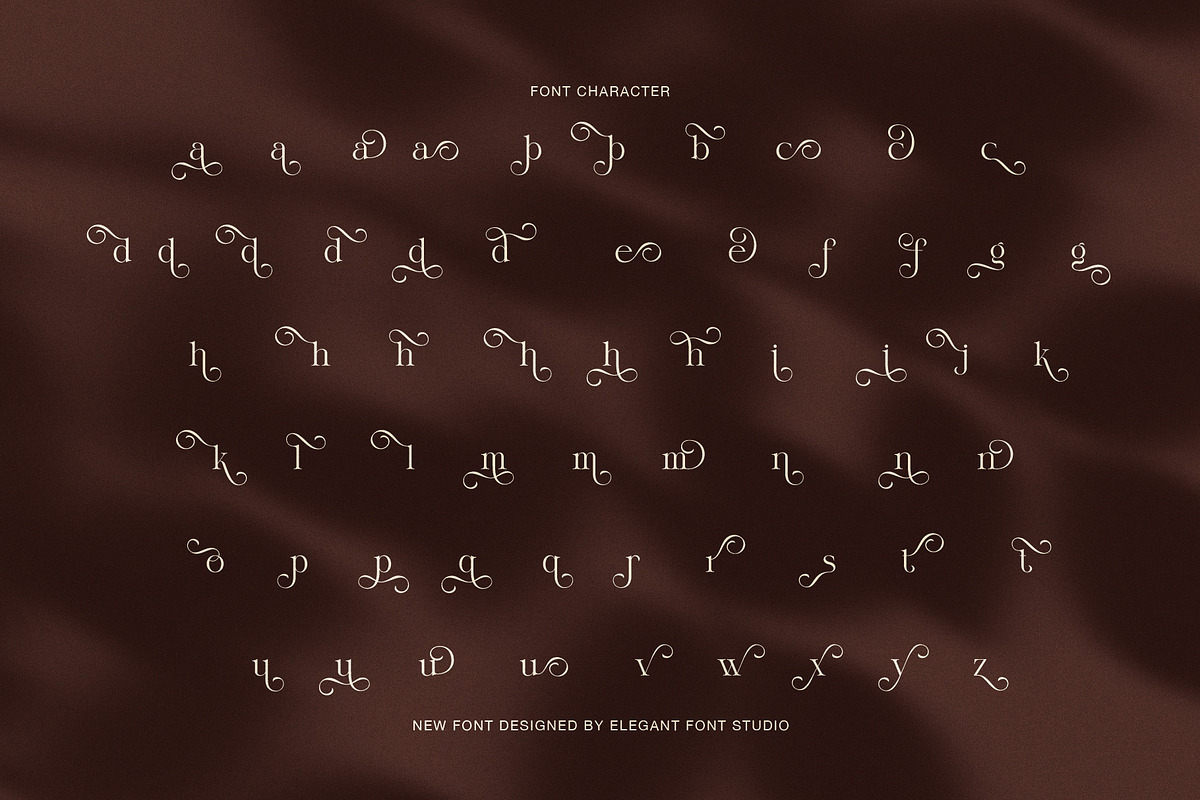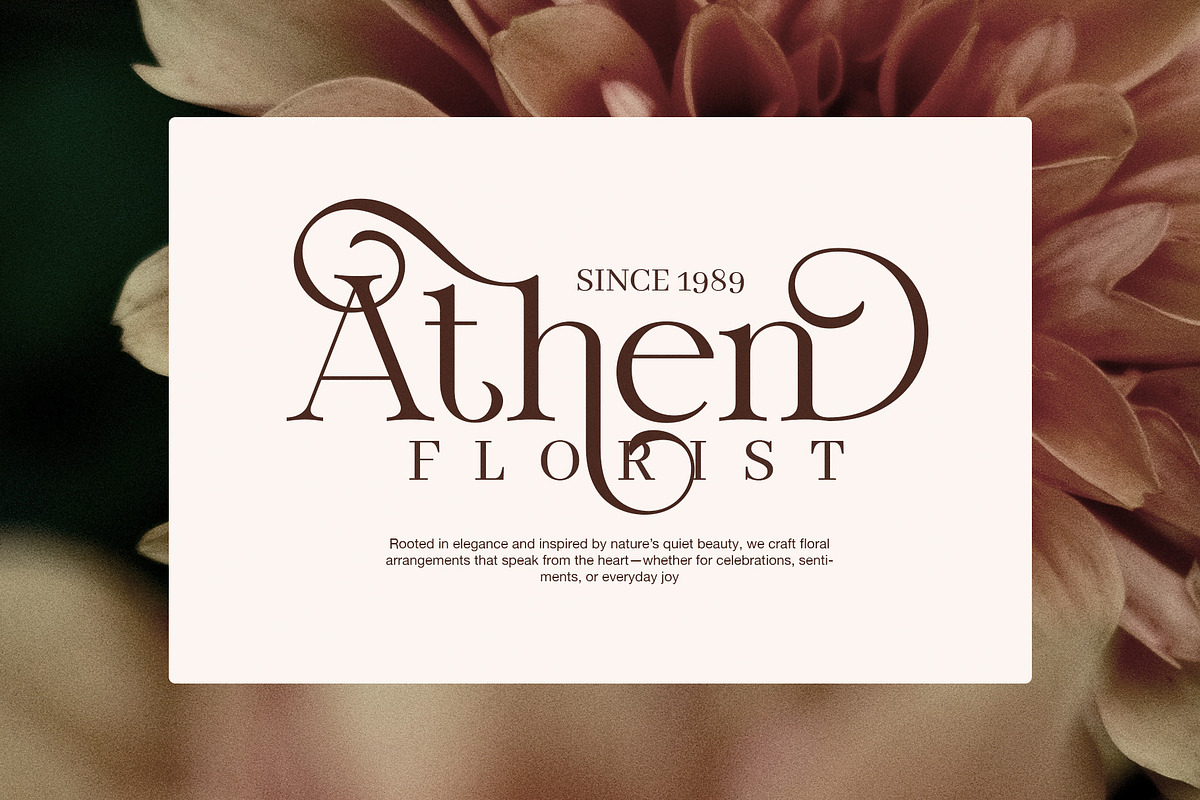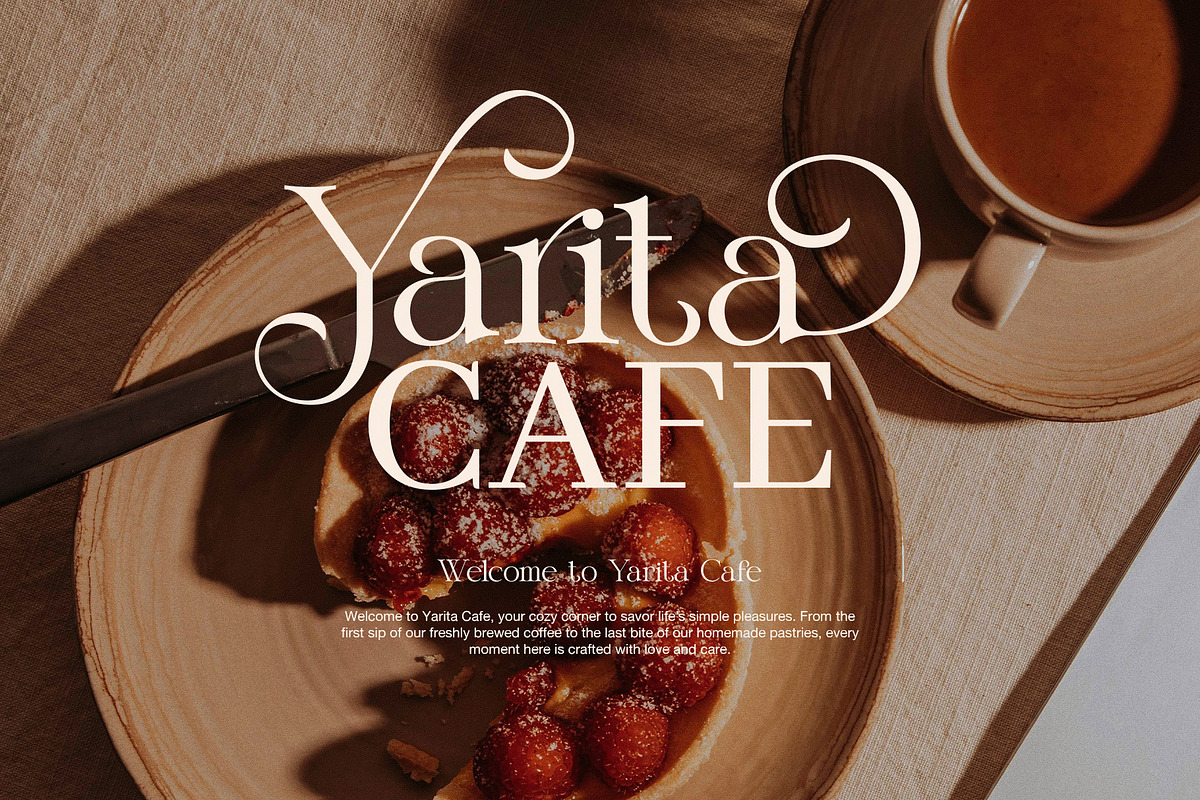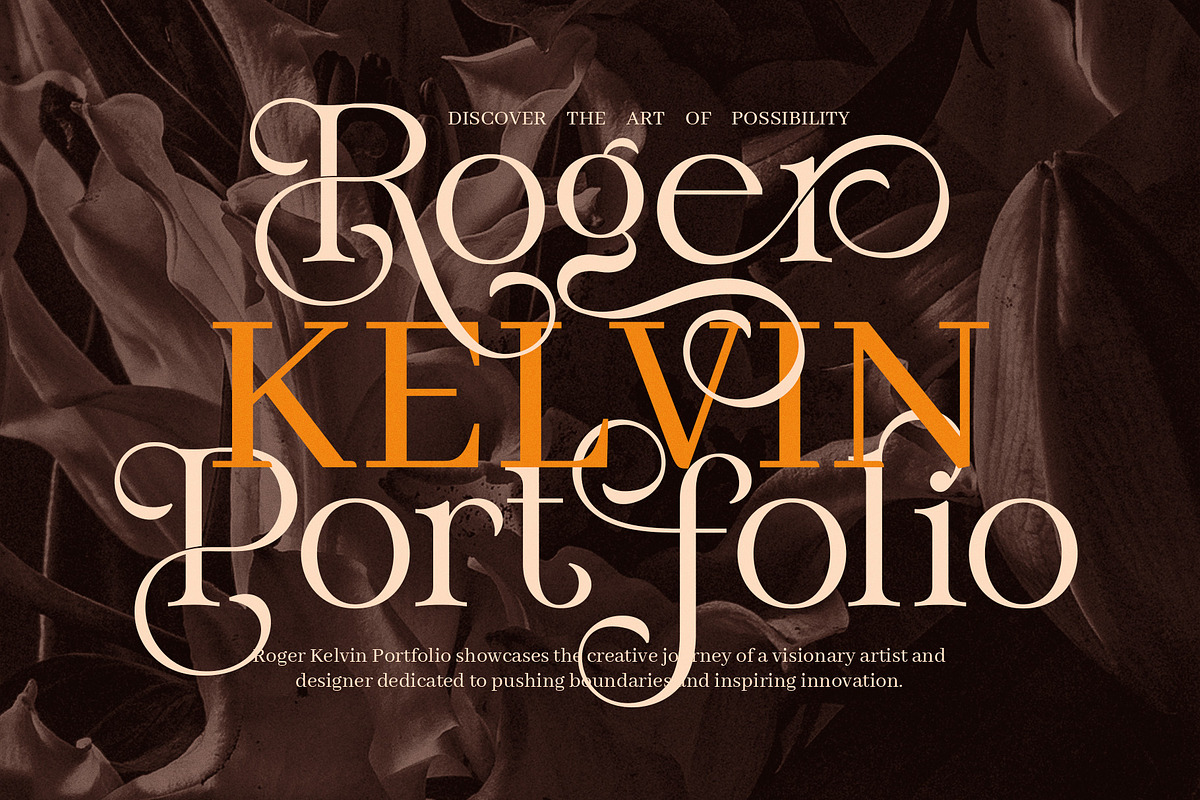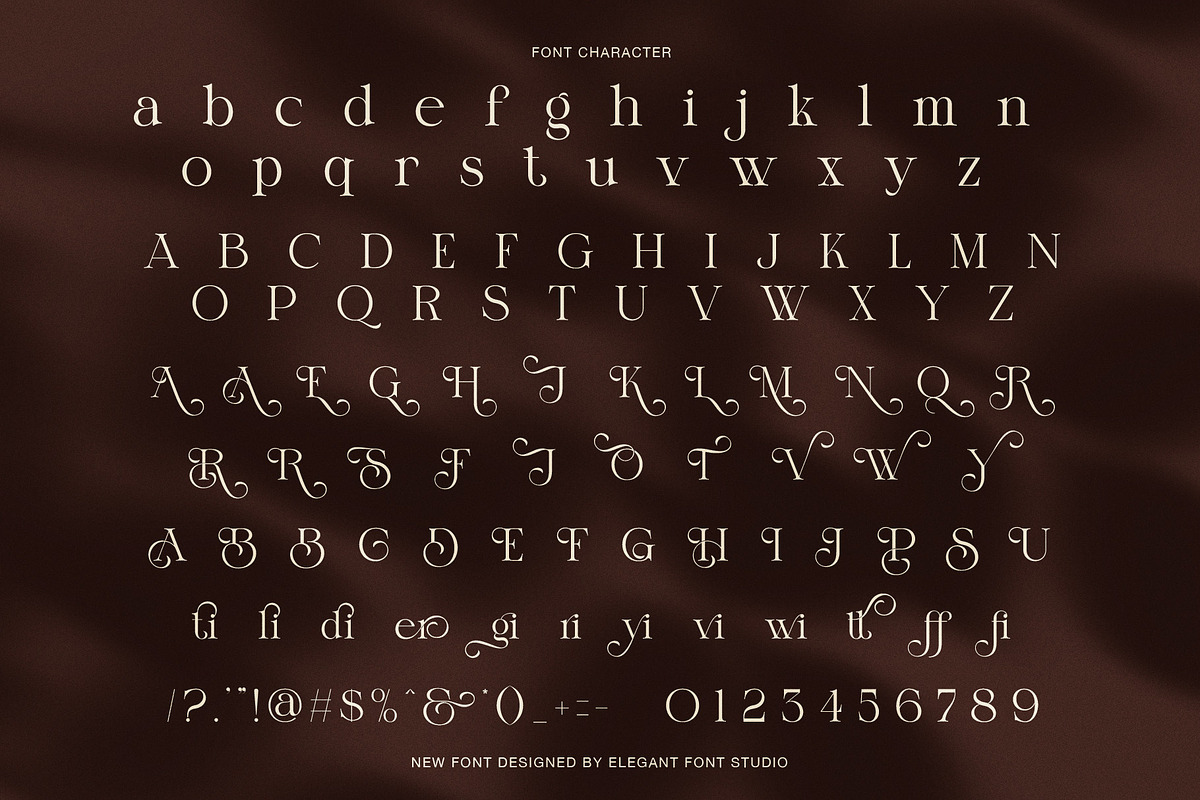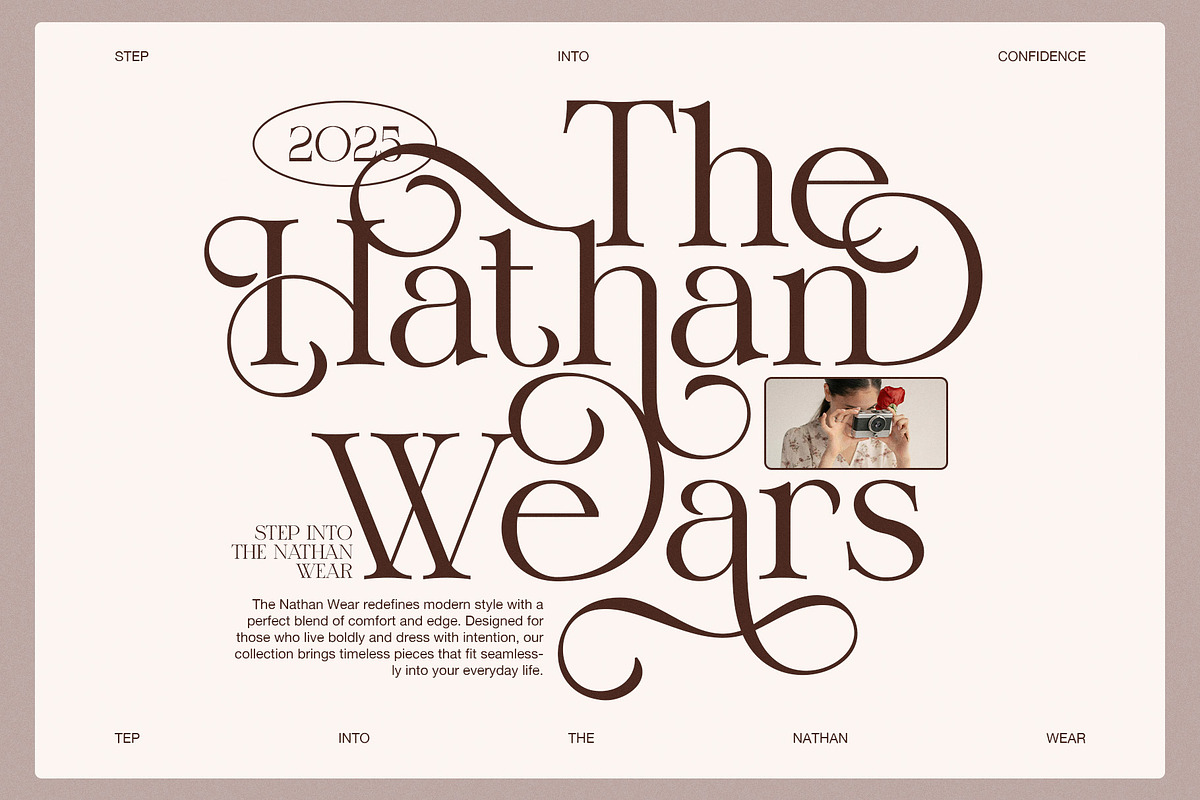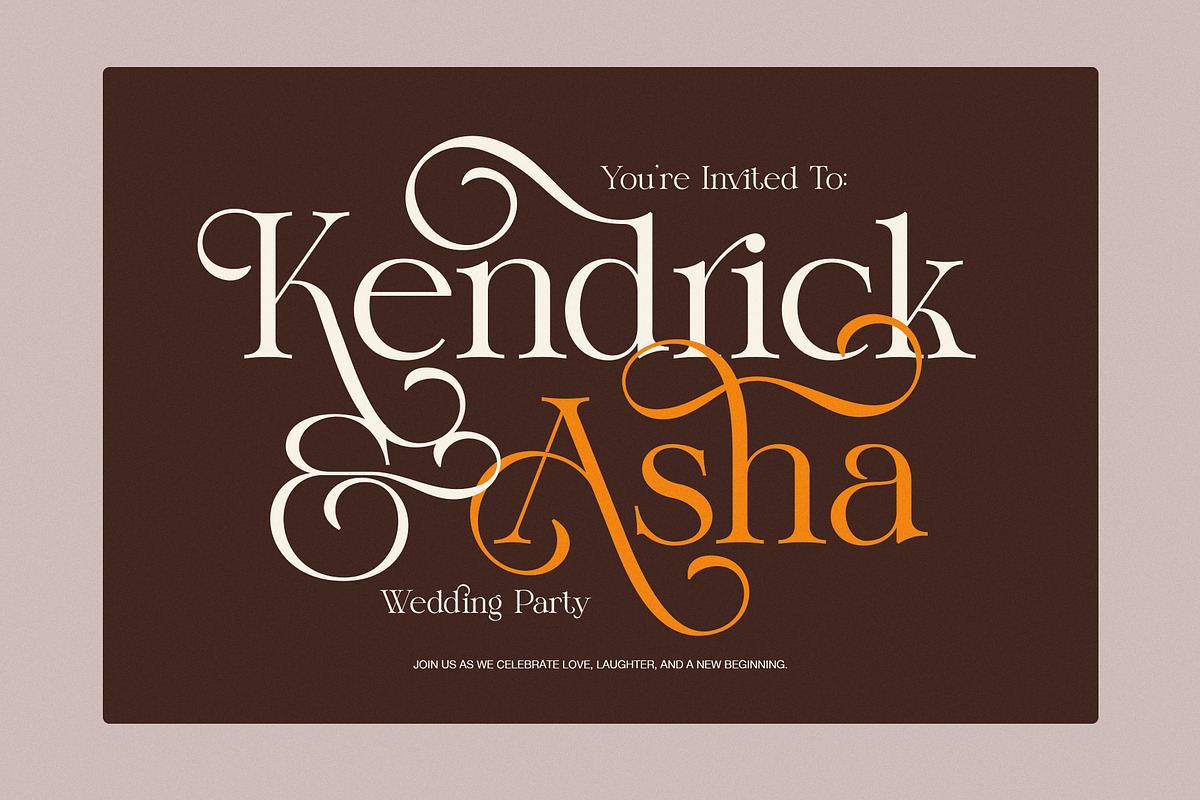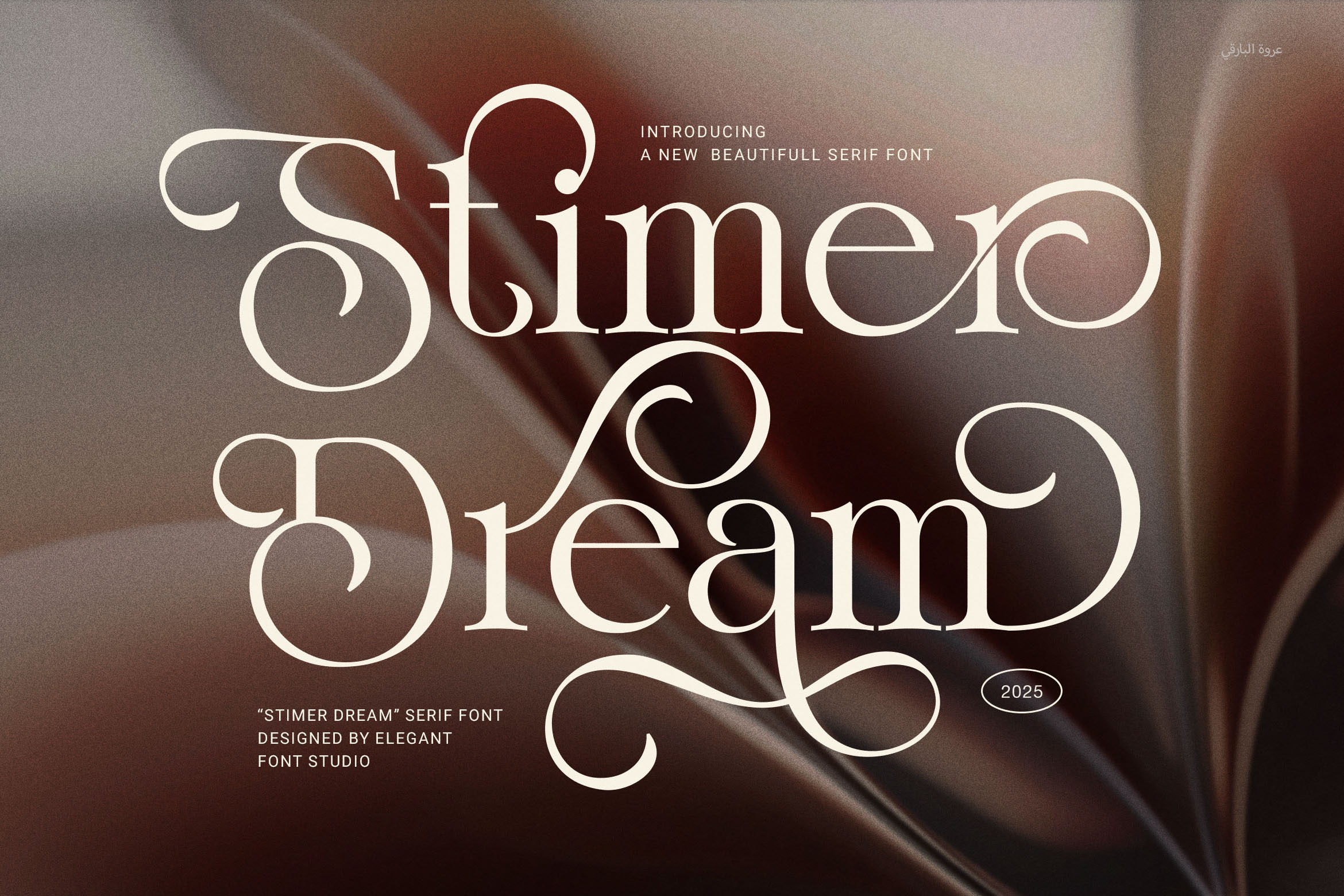
Stimer Dream Elegant Serif Font
Discover the timeless charm of Stimer Dream Elegant Serif Font, a modern serif typeface crafted for sophistication and versatility. Designed with clean proportional shapes, this font perfectly suits branding projects that require a refined, upscale look. Whether you're working on logos, magazines, websites, or product packaging, Stimer Dream adds an elegant touch that elevates your designs.
This serif font comes equipped with functional ligatures, making your typography flow smoothly while enhancing readability. It’s ideal for businesses looking to present a polished image through advertising, boutique labels, or corporate materials. Moreover, Stimer Dream adapts seamlessly to diverse creative needs, from food industry branding to luxury fashion layouts.
Key features of Stimer Dream Elegant Serif Font:
Modern and elegant serif design with clean, proportional shapes
Functional ligatures to improve text flow and aesthetics
Versatile for logos, branding, websites, magazines, and packaging
Ideal for businesses, boutiques, food branding, and advertising
Perfect for both creative professionals and corporate use
Choose Stimer Dream Elegant Serif Font to add sophistication and clarity to your designs. Whether you're crafting a high-end brand or creating compelling advertising materials, this font delivers a beautiful, professional look that stands out. Make your brand’s voice heard with a font that truly reflects quality and elegance.